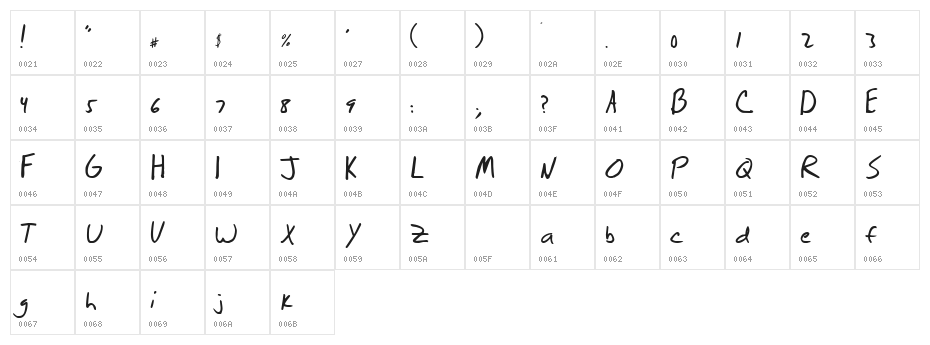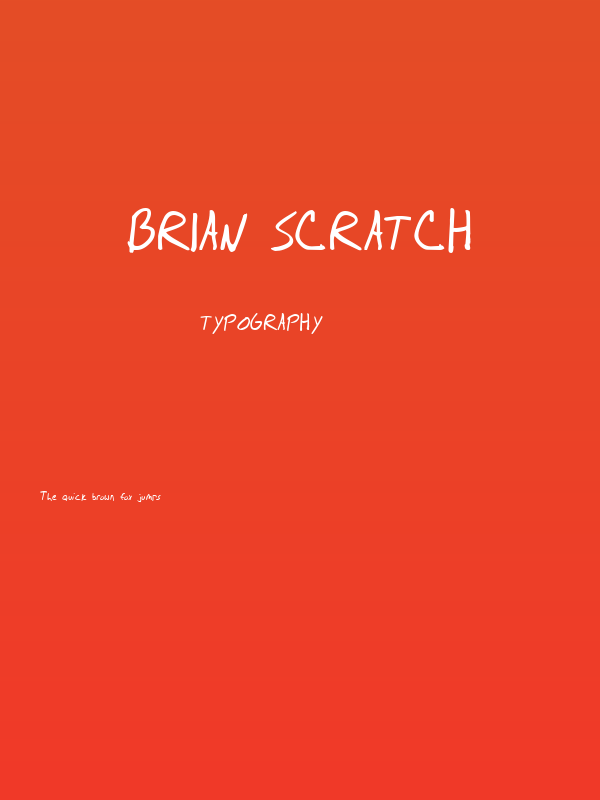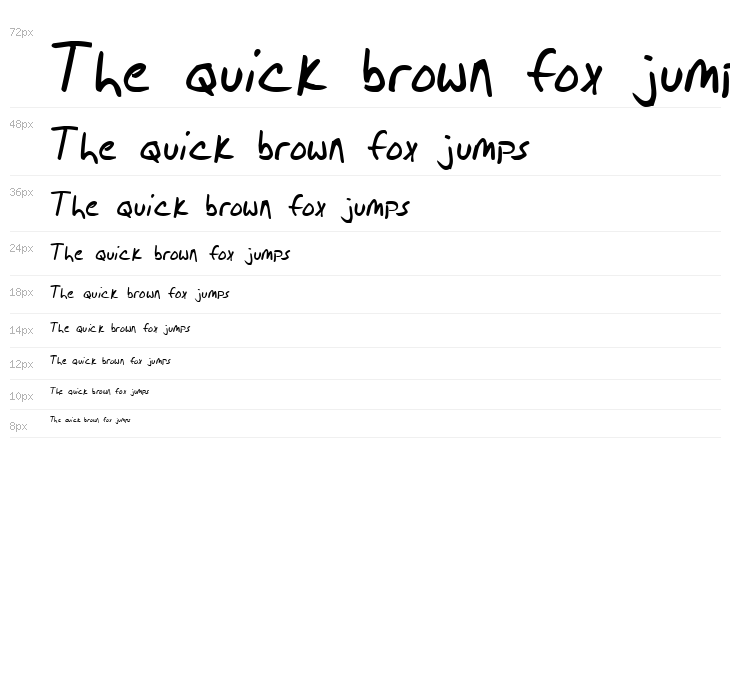
Brian Scratch Font
Brian Scratch Description
This font exudes a casual, handwritten style with a playful and informal appearance. The characters are slightly irregular, giving it a natural and authentic feel, reminiscent of personal notes or doodles. The strokes vary in thickness, adding to the dynamic and lively character of the font. It maintains legibility while offering a unique charm that stands out in creative projects. The uppercase and lowercase letters are distinct yet harmonious, and the numerals and special characters follow the same whimsical style.
| Overall Style | Casual, Playful |
| Use Case | Headlines, Informal Text, Creative Projects |
| Proposed Projects | Ideal for greeting cards, children's books, personal blogs, and creative branding projects. |